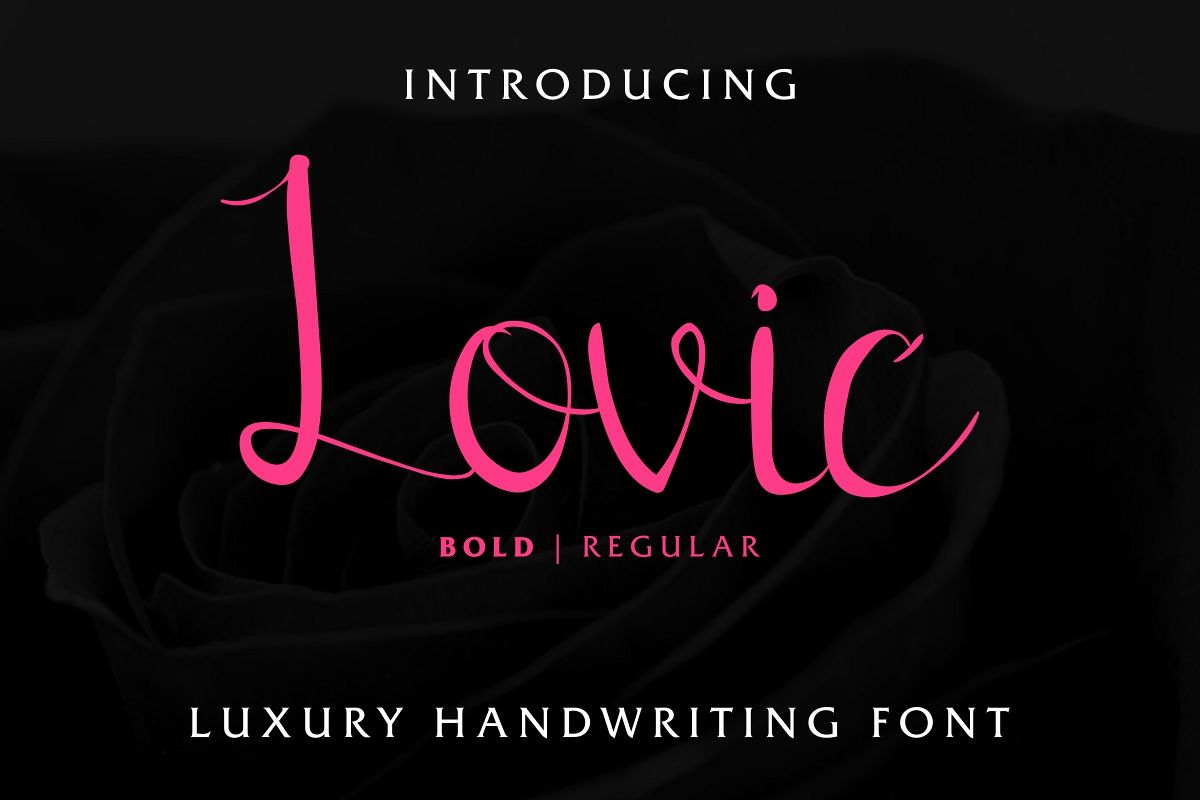
Lovic
Our latest font is here! It is Lovic Font family.Lovic is a calligraphy script font that has an elegant styles and unique glyphs. Made in 2019, this new font will be great for all of your creative works : logo type, stationery, business card, signage, flyer, brochure etc.There are many industries that is suitable for this font : salon, non profit, health care, etc. On the package you will get a zip file contain :